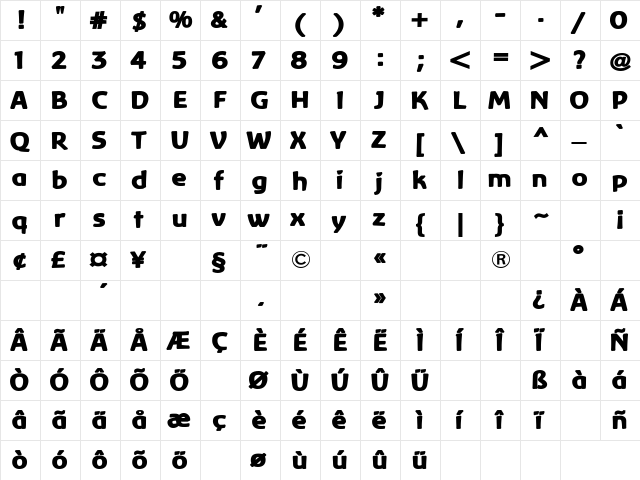
Baar Lemuria Regular
Design Context for Baar Lemuria Typeface
Baar Lemuria takes a measured approach to typography — its balanced proportions and neutral character make it a reliable workhorse for both digital and print work.